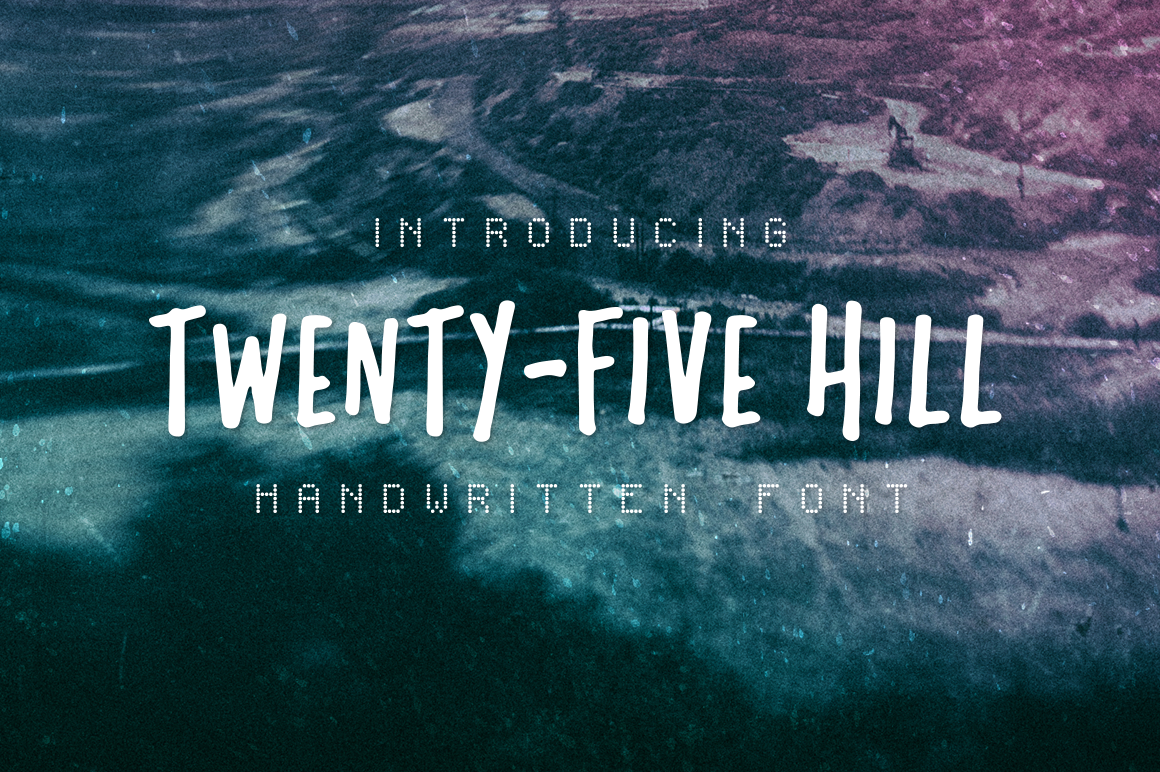
Twenty-Five Hill Font
TWENTY-FIVE HILL is a handwritten font with R-A-N-G-E. Whether you want to use it for a friendly brand or the cover of a metalcore album, you've got the solution. No need to push this guy into a corner.
Twenty-Five Hill is packed with uppercase characters, numbers, symbols and all the characters needed for latin-based languages (multilingual? anyone?). Check out the seventh image for a preview of every character/symbol included in this font.
Use Twenty-Five Hill to create creative brand packages, album covers, editorial, advertisements, posters, t-shirt designs, quotes, or heck, even a good 'ol fashion political cartoon! (because you haven't seen enough of those, right?)